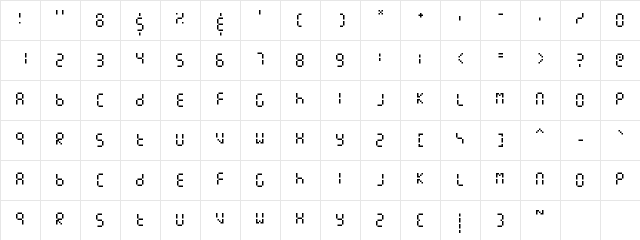
ManualDisplay Medium
Design Context for ManualDisplay Typeface
ManualDisplay brings ornamental detail and strong personality to headlines and identities, where visual impact matters more than quiet functionality.
Font Pairing: Pair with a clean neutral sans-serif for body copy to let ManualDisplay's character lead without overwhelming the composition.
Pro Tip: Treat ManualDisplay as the centrepiece of your typographic hierarchy. One strong heading set in a decorative face can carry an entire layout.